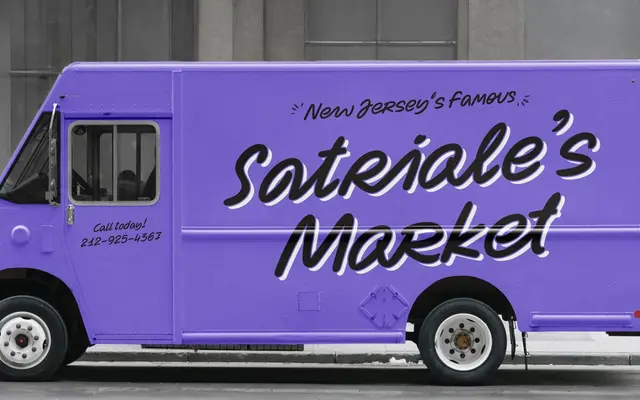
A pointed-brush handwritten script with 936 characters, 42 ligatures and 12 decorative ornaments, aimed at casual and playful design contexts.
Drawn with a pointed brush tool, Zabawa produces light, rhythmic letterforms that suggest spontaneous doodling rather than formal calligraphy. The single font ships with extensive OpenType support: alternate characters for both cases, 42 ligatures, lining and oldstyle figures, fractions and a set of 12 ornaments. The large character set makes it a practical choice for packaging, greeting cards and social content where an informal hand-drawn tone is needed.
Zabawa is a handwritten brush script drawn with a pointed brush tool, producing light, rhythmic letterforms with a casual, spontaneous quality typical of informal script typefaces.